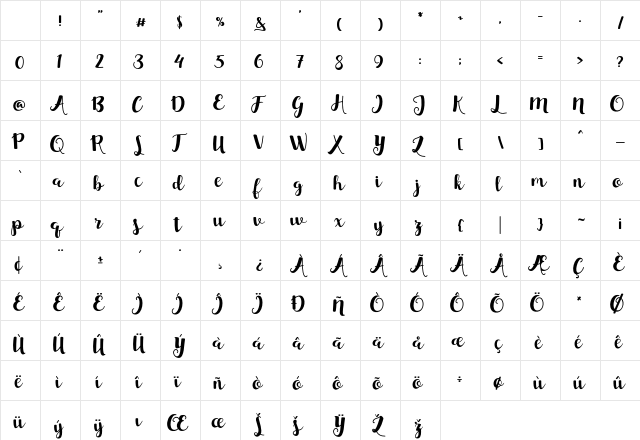
Complete Sunset Script Regular glyph index. Displaying only characters natively supported by Sunset Script Regular font.
Sunset Script flows with the natural rhythm of handwritten lettering, making it ideal for designs that call for warmth and personal expression.
Font Pairing: Combine Sunset Script with a simple geometric sans for maximum contrast - the tension between flowing curves and clean structure is a classic typographic pairing.
Pro Tip: Use Sunset Script for short runs of text - names, titles, or taglines. Extended body copy in script faces tires the eye quickly.